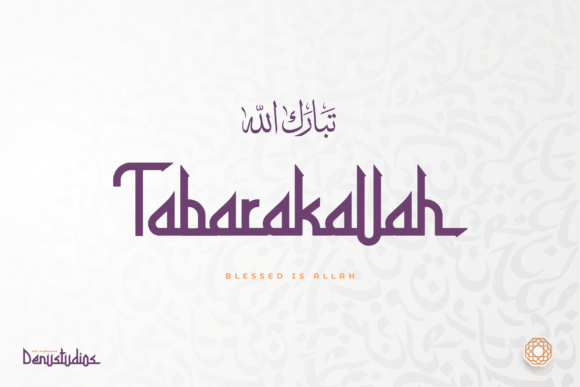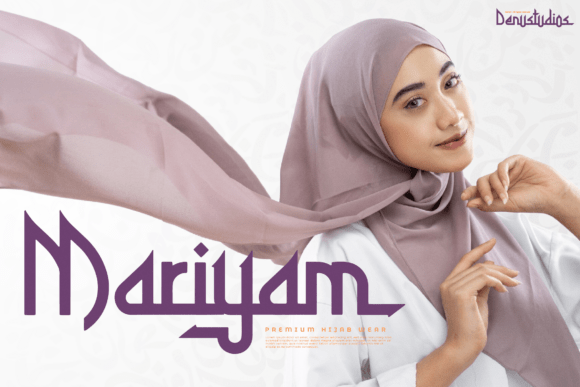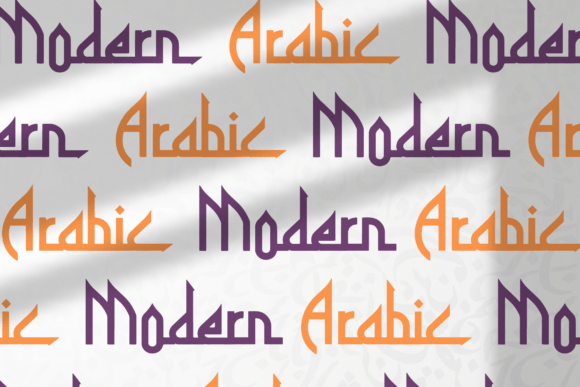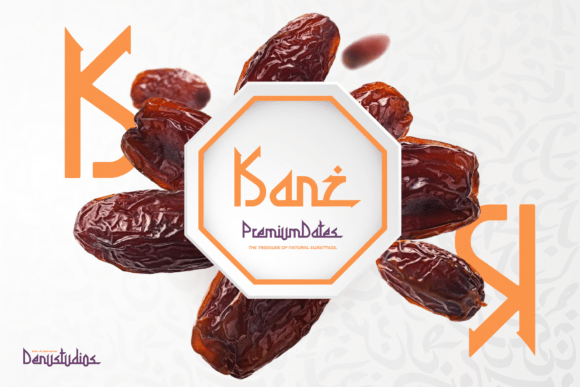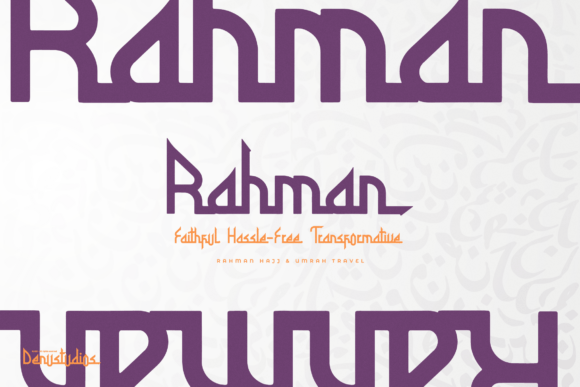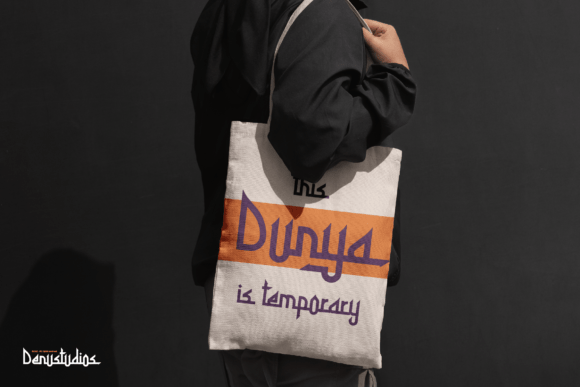
Introduction to Salafushalih Font
As a designer, have you ever stumbled upon a font that makes you pause and take notice? A font that instantly elevates your creative project from good to great? For many designers, that moment of discovery can be a game-changer. And for those who appreciate the beauty of Arabic calligraphy, the Salafushalih Font is sure to leave a lasting impression.
With its bold and elegant style, the Salafushalih Font seamlessly blends traditional calligraphic elements with geometric precision, making it a valuable design resource for creatives seeking to add a touch of cultural flair to their work. Whether you’re designing a poster, packaging, or Islamic event materials, this font’s ornamental yet structured style is sure to shine through, especially when used with a transparent background.
Key Features of Salafushalih Font
- Unique Arabic calligraphy style, suitable for various design applications
- Transparent background, allowing for easy integration with any design
Honest Review: Salafushalih Font
As a designer, I’m always on the lookout for high-quality design resources to enhance my creative projects. The Salafushalih Font is one such find that I’d like to share with you.
What works well: ✨ The font is incredibly versatile, suitable for a range of creative projects, from elegant typography to bold headlines. I particularly appreciate the fact that it comes with a transparent background, making it easy to layer and customize. The font’s high quality is evident in its crisp, clean lines and well-balanced characters.
Overall impression: The Salafushalih Font is a solid choice for designers seeking a high-quality, free design resource. While it may not be perfect for every project, its versatility and crisp typography make it a valuable addition to any creative toolkit.
- High-quality, versatile font suitable for various creative projects
- Limited character set may not be suitable for all projects
Salafushalih Font
For the best results, use the Salafushalih Font with a transparent background to create a high-quality design resource. This font is perfect for creative projects where a clean and modern look is desired.
The Salafushalih Font is ideal for designing posters, flyers, and brochures. It’s also great for creating social media graphics and presentations.